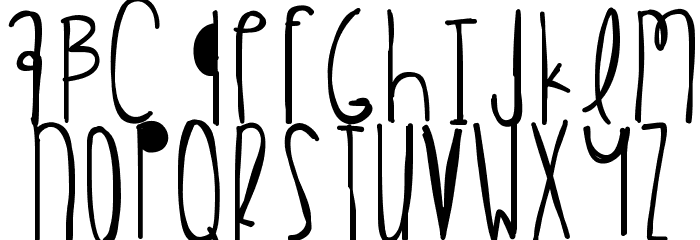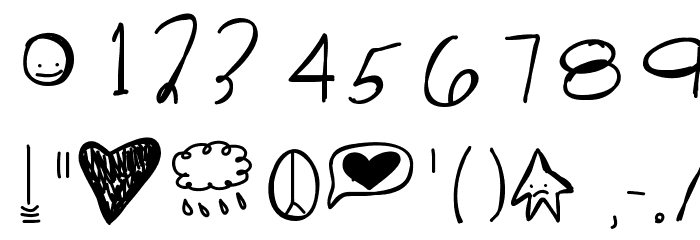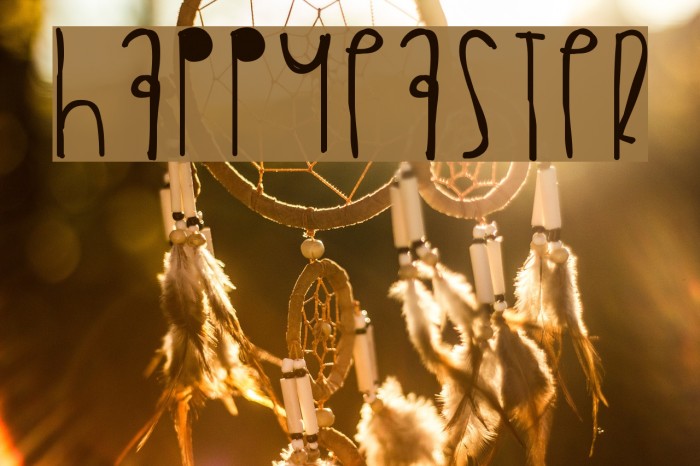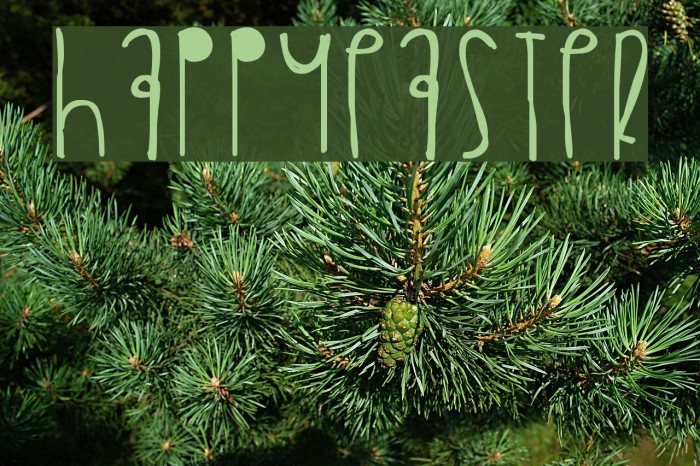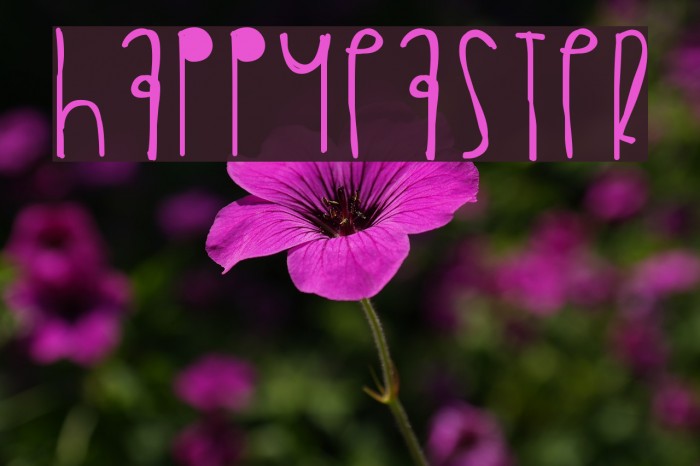
HappyEaster Font
This playful and whimsical font features tall, narrow characters with a hand-drawn aesthetic. The letters have a casual, informal style, with varying stroke thickness that adds a dynamic and lively feel. The uppercase and lowercase letters maintain a consistent height, creating a cohesive look. Numbers and special characters are included, each with unique, quirky designs that complement the overall style. The font's irregular shapes and playful elements make it ideal for creative projects that require a fun and engaging visual appeal.
A playful, hand-drawn font with tall, narrow characters and a whimsical style.
- Proposed Projects: Ideal for children's books, greeting cards, playful branding, and creative posters.
- Overall Style: Whimsical
- Use Case: Headlines, Creative projects, Informal designs